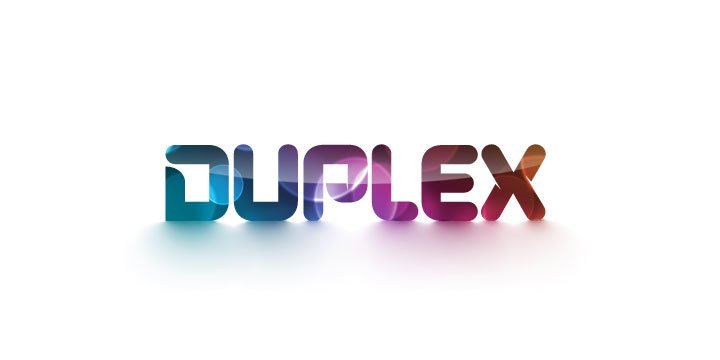
About the Duplex Font
About Duplex Font Family Duplex is a custom font which is applicable for any type of graphic design – web,print, motion graphics etc and perfect for t-shirts and logos, Designers: Svetoslav SimovPublisher: FontfabricFoundry: FontfabricDesign Owner: FontfabricMyFonts debut: Apr 10, 2009 Duplex™ is a trademark of Fontfabric,